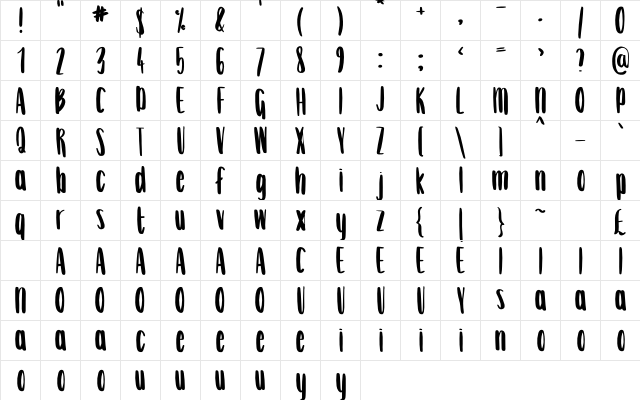
Anna Kay Regular
Design Context for Anna Kay Typeface
Anna Kay is a composed and adaptable typeface that performs quietly and consistently across a wide range of design contexts.